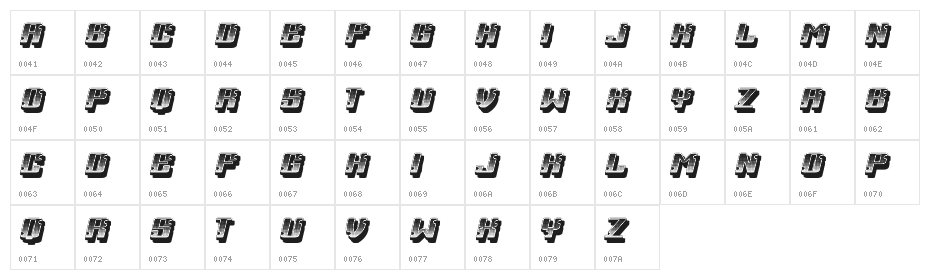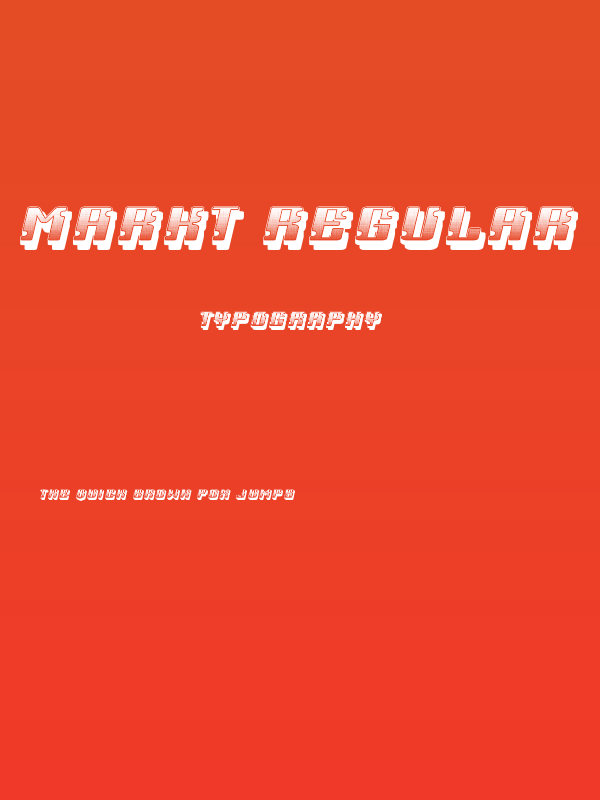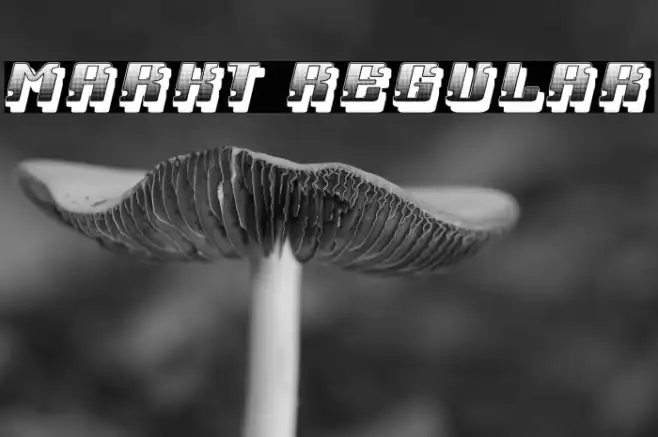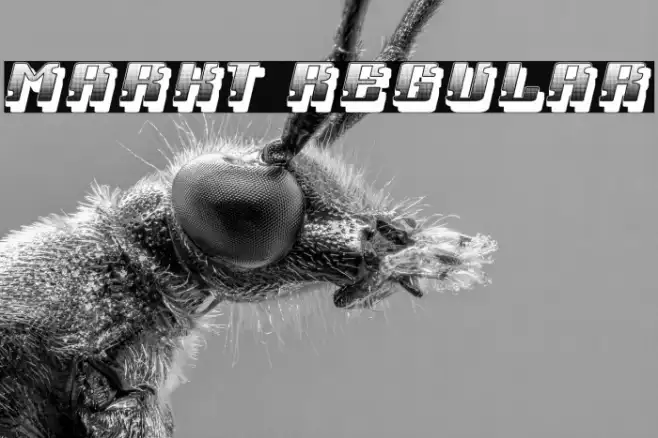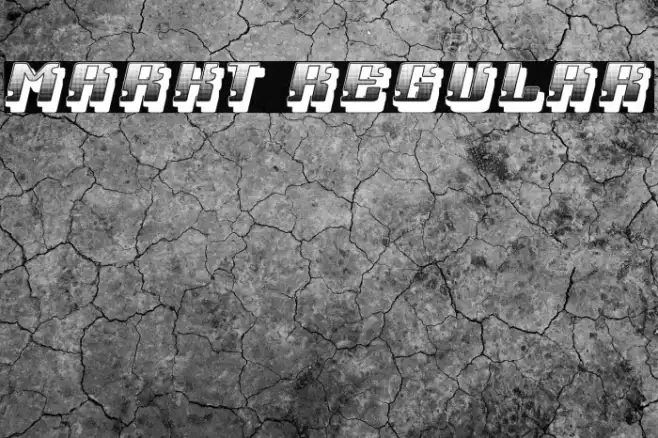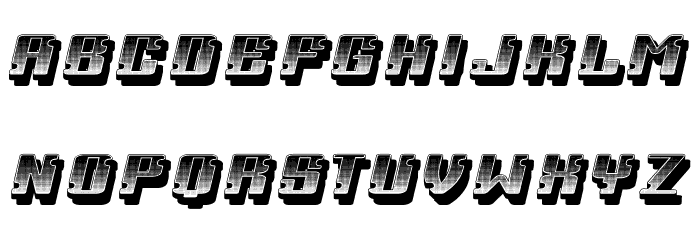
Markt Regular Font
Markt Regular Description
This font features a bold and striking 3D effect, giving each character a sense of depth and dimension. The letters are uppercase and have a blocky, geometric style with sharp edges and clean lines. The shadowing effect adds a layer of complexity, making it ideal for eye-catching designs. The font's unique appearance makes it suitable for projects that require a strong visual impact. Its boldness and distinct style make it stand out, while the consistent geometric shapes provide a sense of uniformity and balance.